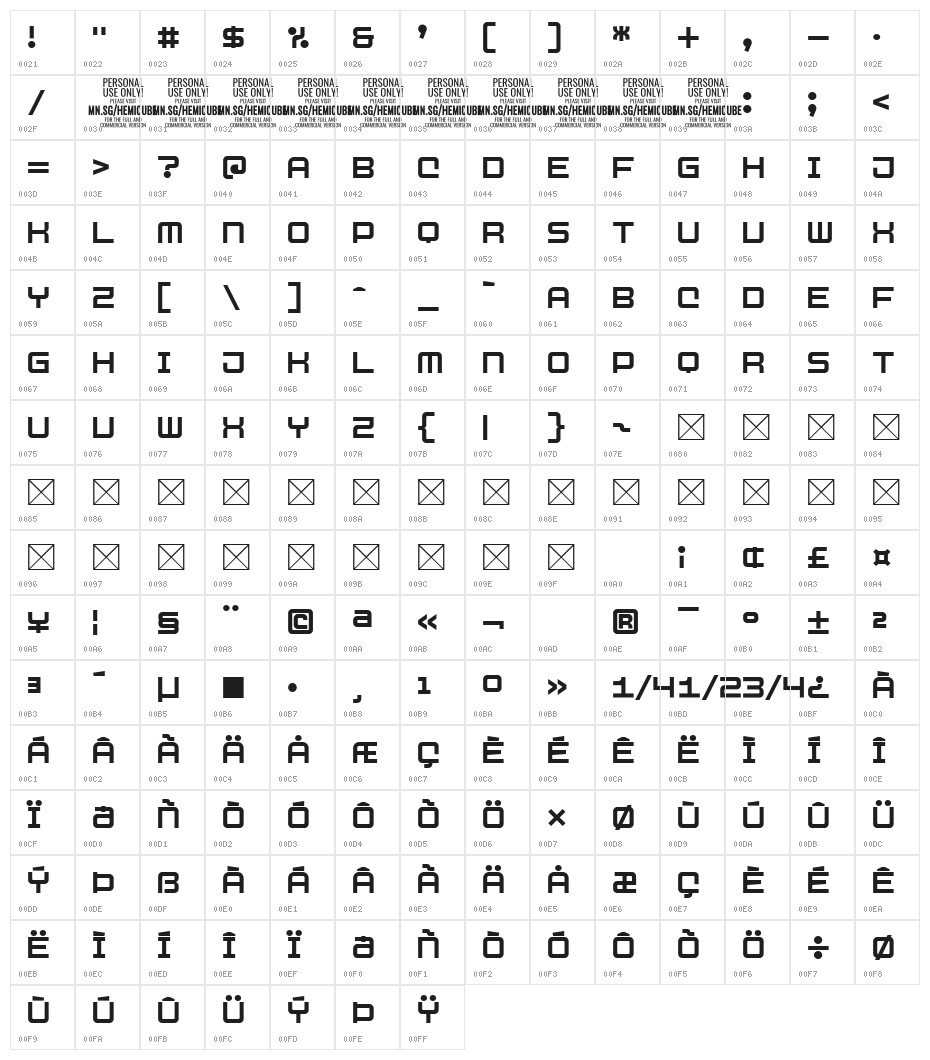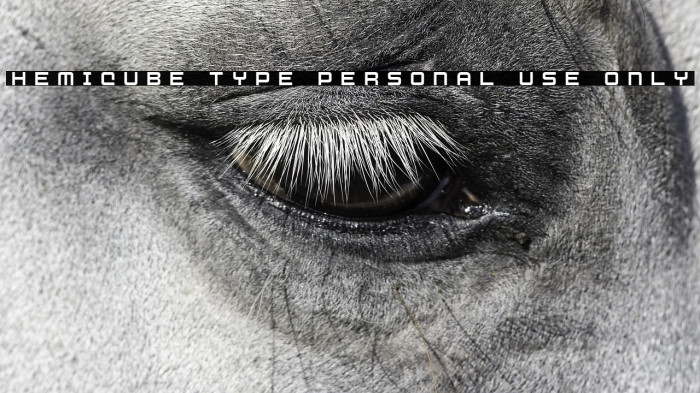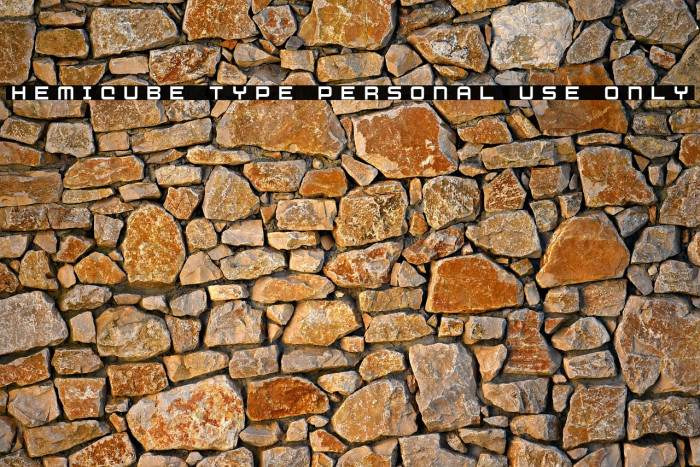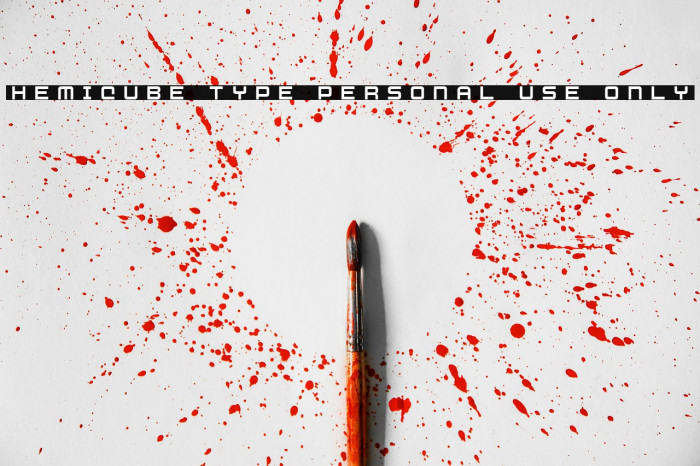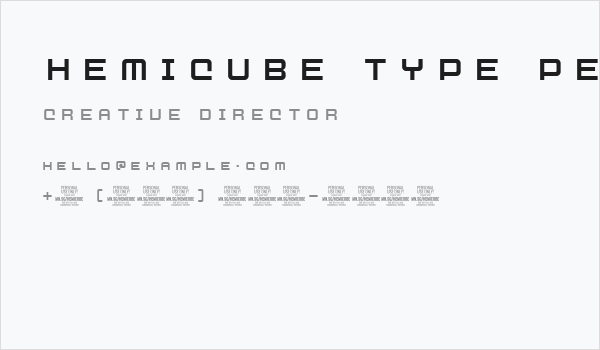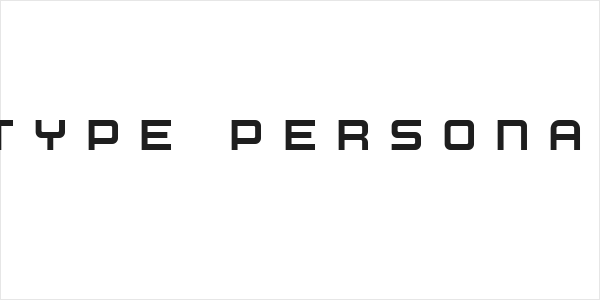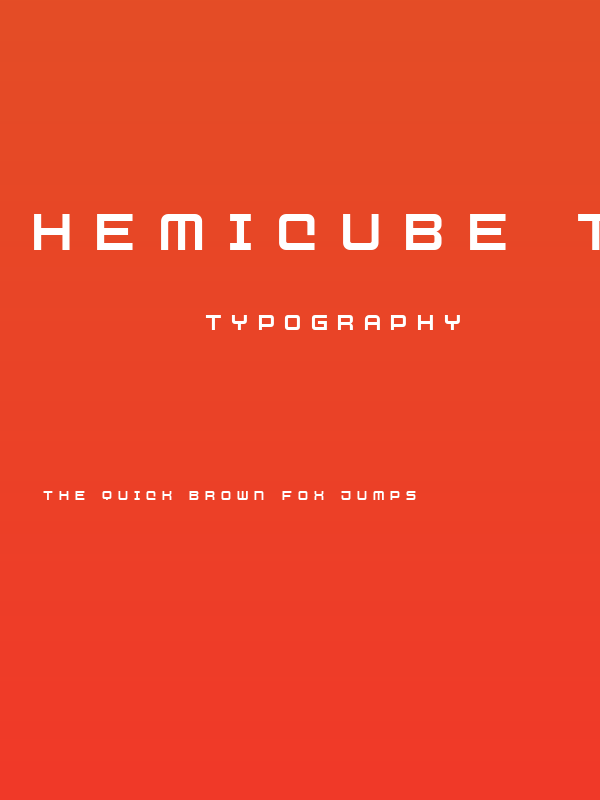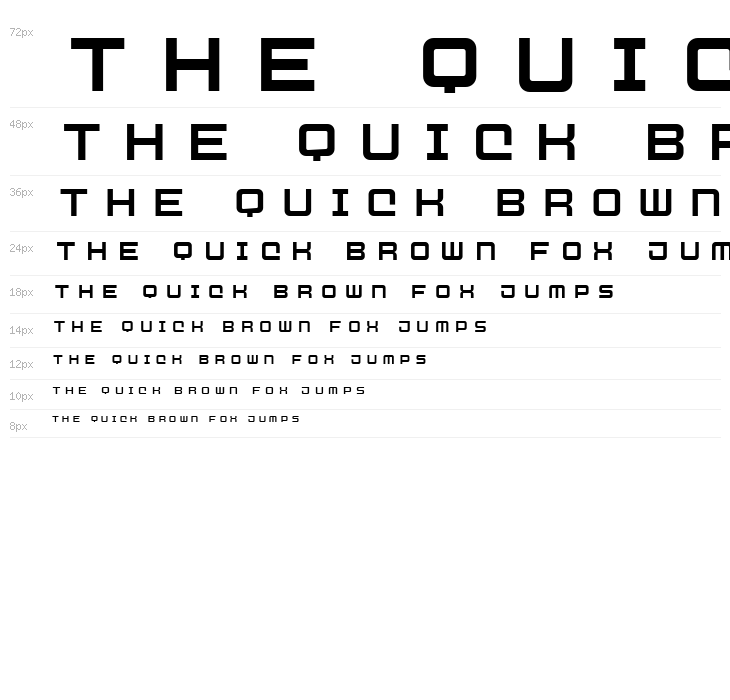
Hemicube Type PERSONAL USE ONLY Font
Hemicube Type PERSONAL USE ONLY Description
This font features a modern, geometric design with a strong emphasis on straight lines and right angles. The characters are uniform in width, giving it a monospaced appearance, although it maintains a certain level of elegance and readability. The uppercase and lowercase letters are distinct yet cohesive, with a futuristic aesthetic that is both bold and clean. The numerals and special characters are designed to match the overall style, ensuring consistency across all elements. This font is ideal for projects that require a contemporary and technical look.
| Use Case | Headlines, Logos, Digital Interfaces |
| Proposed Projects | Ideal for tech branding, digital interfaces, video game design, and modern advertising. |